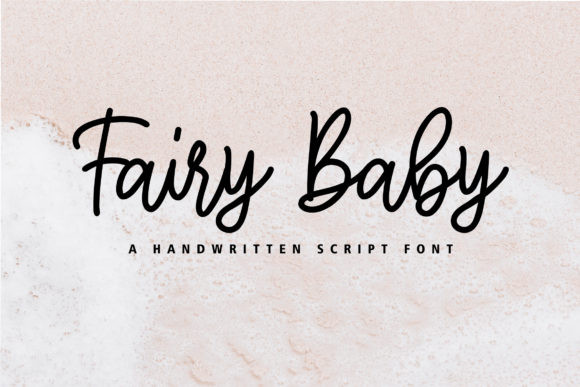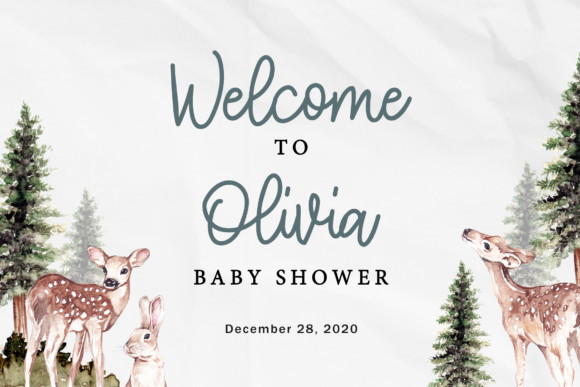
Fairy Baby Font
Fairy Baby is a sweet and friendly handwritten font. Fall in love with its incredibly versatile style and use it to create gorgeous wedding invitations, beautiful stationary art, eye-catching social media posts, and much more!